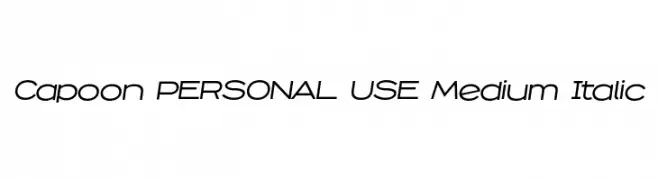
A modern, bold, and slightly italic font with medium contrast and a dynamic style.
A modern, medium-weight italic font with a sleek and dynamic style.
A modern, italic sans-serif font with medium weight and clean lines.